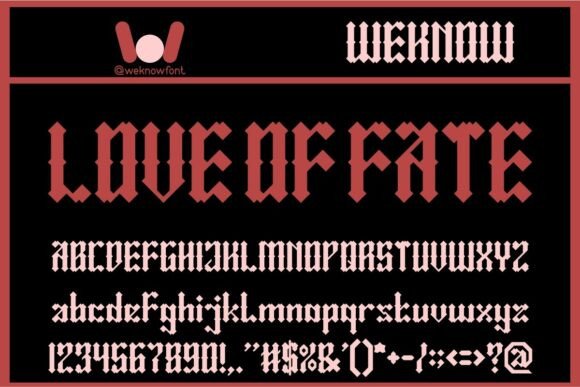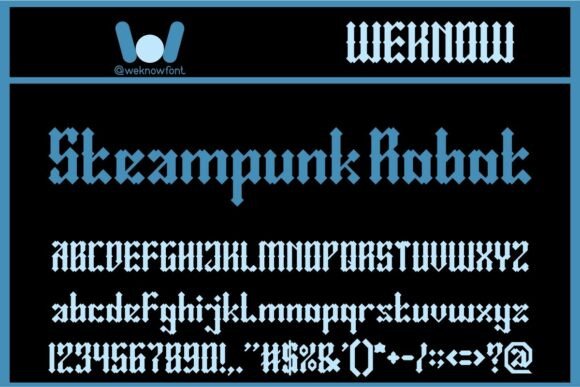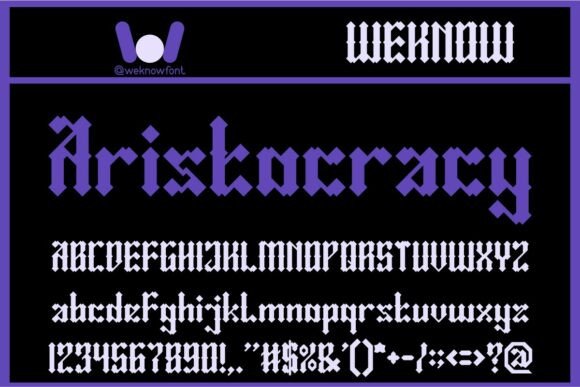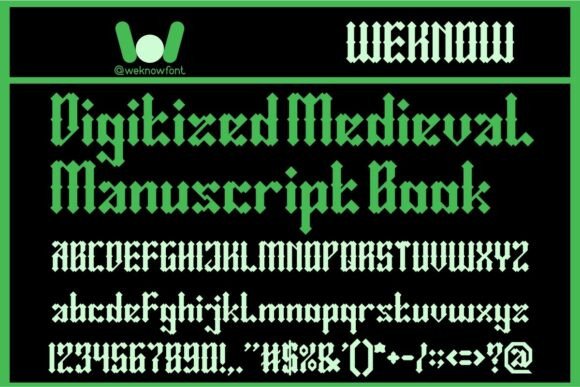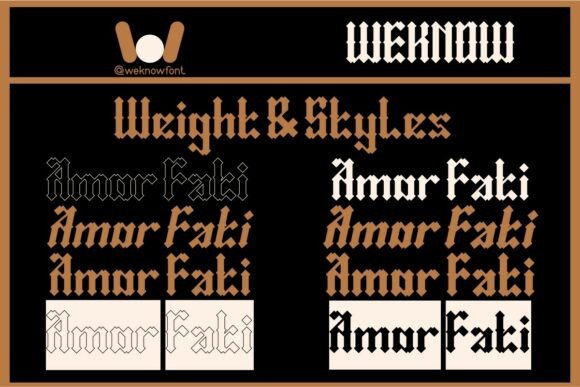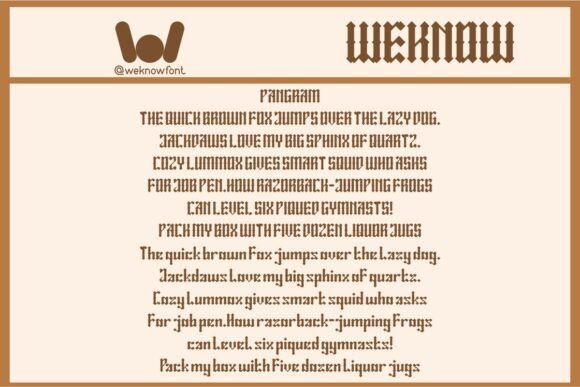
Unleash Your Creativity with Amor Fati Font: The Ultimate Display Typeface
Are you on the hunt for a font that exudes sophistication, makes a bold statement, and adds a touch of edginess to your brand or project? Look no further than Amor Fati, a striking fusion of black letter and modern gothic style. This display font is designed to dominate the visual landscape, making it the perfect choice for logos, logotypes, posters, and a wide range of creative projects.
A Font that Embodies Sophistication and Edginess
Amor Fati is not just a font – it’s an experience. Its unique blend of traditional black lettering and modern gothic elements creates a distinctive look that’s both captivating and memorable. Whether you’re looking to revamp your corporate identity, create eye-catching posters, or add a touch of personality to your digital platforms, Amor Fati is the perfect choice.
Endless Possibilities for Creative Projects
So, what can you do with Amor Fati? The possibilities are truly boundless. Here are just a few ideas to get you started:
- Apparel Industry: Make a bold statement with Amor Fati on t-shirts, hoodies, and other apparel items. Its striking design ensures that your brand or message stands out.
- Posters and Flyers: Create eye-catching posters and flyers that grab attention and leave a lasting impression. Amor Fati’s modern gothic style adds a touch of sophistication and elegance.
- Music, Movies, and Games: Set the tone for your music, movie, or game with Amor Fati. Its bold and edgy design makes it perfect for promotional materials, titles, and credits.
- Magazines and Comics: Add a touch of personality to your magazine or comic book with Amor Fati. Its unique design makes it perfect for headlines, titles, and captions.
- Digital Platforms: Elevate your YouTube channel, Instagram feed, or website with Amor Fati. Its modern design ensures that your online presence is both stylish and memorable.
Why Choose Amor Fati?
So, why should you choose Amor Fati over other fonts? Here are just a few reasons:
- Unique Design: Amor Fati’s fusion of black letter and modern gothic style creates a distinctive look that’s both captivating and memorable.
- Versatility: Amor Fati is perfect for a wide range of creative projects, from logos and posters to digital platforms and apparel.
- Sophistication: Amor Fati adds a touch of sophistication and elegance to any project, making it perfect for brands and designers looking to make a bold statement.
Tips for Using Amor Fati
To get the most out of Amor Fati, here are a few tips to keep in mind:
- Use it boldly: Amor Fati is designed to make a statement, so don’t be afraid to use it in bold and eye-catching ways.
- Experiment with colors: Amor Fati looks great in a range of colors, so don’t be afraid to experiment and find the perfect hue for your project.
- Pair it with other fonts: Amor Fati can be paired with a range of other fonts to create a unique and memorable look.
In conclusion, Amor Fati is a striking and versatile font that’s perfect for designers and crafters looking to add a touch of sophistication and edginess to their projects. With its unique fusion of black letter and modern gothic style, Amor Fati is sure to make a bold statement and leave a lasting impression. So why wait? Download Amor Fati today and unleash your creativity!